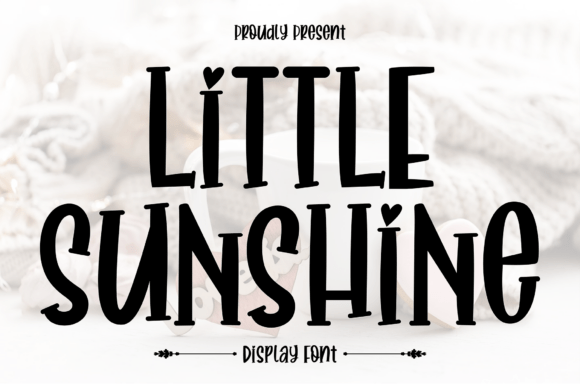
Little Sunshine Font: A Warm and Playful Choice
Fonts play a crucial role in how we communicate visually. They can transform a simple message into something memorable, inviting, or even whimsical. One font that stands out for its charm and versatility is Little Sunshine. Designed to blend modernity with a friendly touch, it’s a slab serif font that adds warmth and character to any design project.
The Charm of Slab Serifs with a Modern Twist
Slab serif fonts are known for their bold, block-like serifs that give them a sturdy and readable feel. But what makes Little Sunshine special is how it balances this traditional structure with a more playful and approachable aesthetic. Its rounded edges and soft curves create a sense of friendliness and nostalgia without sacrificing clarity — an ideal mix for those who want their designs to stand out while remaining easy on the eyes.
Why You’ll Love Using Little Sunshine
If you're working on creative projects like greeting cards, gift tags, or seasonal marketing materials, Little Sunshine is a great choice. It brings a cheerful atmosphere to your words, making it perfect for adding personality to both personal and professional content. The font has a subtle elegance that works well in branding, invitations, and even social media posts where you want to convey warmth and positivity.
For beginners, choosing the right font can be overwhelming. Little Sunshine simplifies the process by offering a clean, beautiful display style that's versatile enough to suit many needs. Whether you’re designing for print or digital platforms, it adapts well and maintains its visual appeal across different mediums.
Where to Use Little Sunshine Effectively
Let’s explore some real-world scenarios where Little Sunshine shines:
- Greeting Cards: From birthdays to thank-you notes, this font gives a warm, handcrafted feel that resonates emotionally with recipients.
- Gift Labels and Packaging: Its nostalgic vibe pairs beautifully with holiday themes, adding charm to product names or personalized messages.
- Branding and Marketing: Businesses focused on lifestyle, wellness, or children's products can use Little Sunshine to build a friendly and inviting brand identity.
- Social Media Graphics: Use it for quotes, announcements, or promotional text to make your content more engaging and visually appealing.
- Blog Headers and Titles: Bloggers and content creators will appreciate how it adds a unique flair to headings while still being legible.
Designing with Purpose: Practical Benefits
Little Sunshine isn’t just about aesthetics; it also serves practical purposes. For educators creating classroom posters or activity sheets, it helps maintain a welcoming environment for students. Freelancers and small business owners often need a font that looks professional yet personable — this one does both.
One standout feature is how it handles short bursts of text. Because it’s a display font, it works best in headlines, titles, or short phrases rather than long paragraphs. This makes it especially useful in signage, advertisements, and website headers where impact matters most.
What Makes Little Sunshine Unique?
Many fonts aim to be either elegant or fun, but few manage to strike the balance as well as Little Sunshine. Its modern construction ensures it won’t look outdated, while the gentle curvature and rounded edges evoke a sense of joy and simplicity. This duality allows it to fit into both contemporary and vintage-inspired designs seamlessly.
Another key trait is its readability. Even though it’s stylized, the characters are designed with clarity in mind. This means you can confidently use it in printed materials such as brochures, posters, or menus without worrying about legibility.
Realistic Use Cases for Creative Professionals
Graphic designers and marketers might find Little Sunshine particularly useful when crafting campaigns around holidays, family events, or community-based initiatives. Here are a few examples:
- Christmas Greeting Cards: Pair it with festive colors and illustrations for a cozy, heartfelt look.
- Wedding Invitations: Use it for the header to add a personal and elegant touch.
- Children’s Books or Educational Materials: Its friendly appearance encourages engagement and makes learning feel less intimidating.
- Restaurant Menus: Especially for cafes or brunch spots aiming for a warm, inviting ambiance.
- Instagram Posts or Brand Logos: Create a cohesive visual identity with a font that feels both stylish and sincere.
Important Considerations Before Choosing Little Sunshine
While Little Sunshine is a fantastic option for many projects, it’s important to consider a few things before committing:
- Use Case: As a display font, it may not be suitable for body text in large volumes. Save it for impactful headlines and short phrases.
So if you're looking for a font that brings a smile to your designs and adds a touch of charm, consider giving Little Sunshine a try. You might just find it becomes a favorite in your creative arsenal.